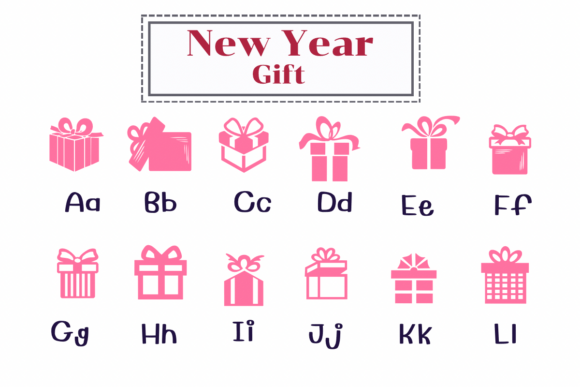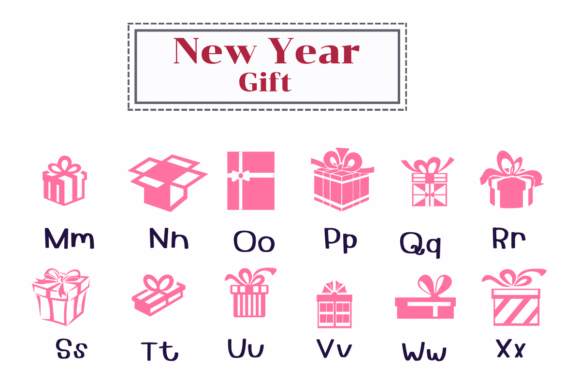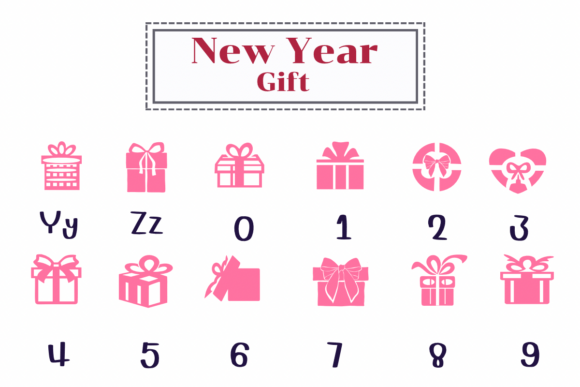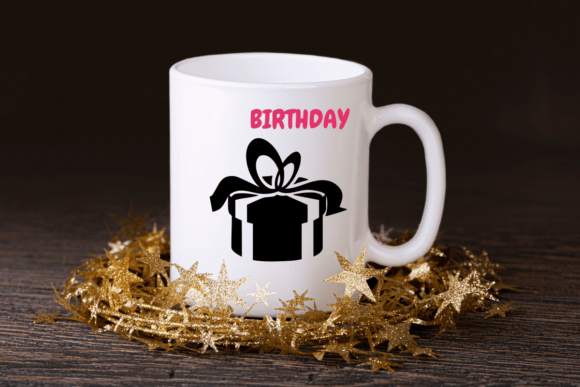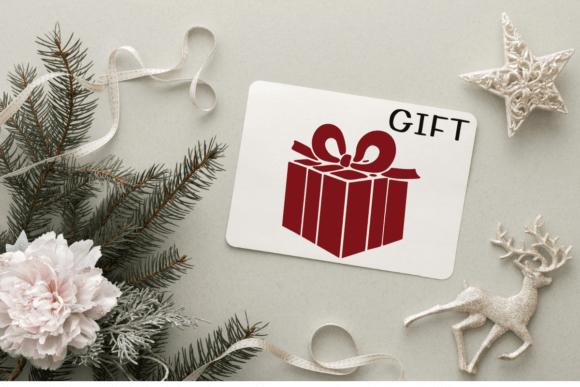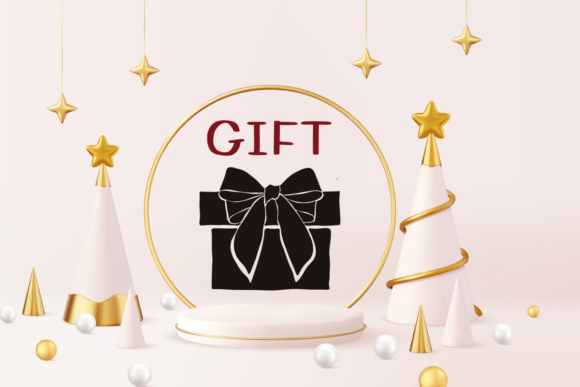
Introduction to New Year Gift Font
A New Year gift dingbat font features symbols and images related to gifts, like wrapped presents, bows, and festive decorations.
It’s a fun and creative way to add holiday cheer to your designs with simple, easy-to-use pictures that represent the spirit of giving Perfect for cards, invitations, and seasonal projects.
Key Features of New Year Gift Font
Why Choose New Year Gift Font?
New Year Gift Font offers exceptional quality and versatility, making it a valuable addition to your design toolkit. Whether you’re creating for personal projects or commercial use, New Year Gift Font delivers professional results.